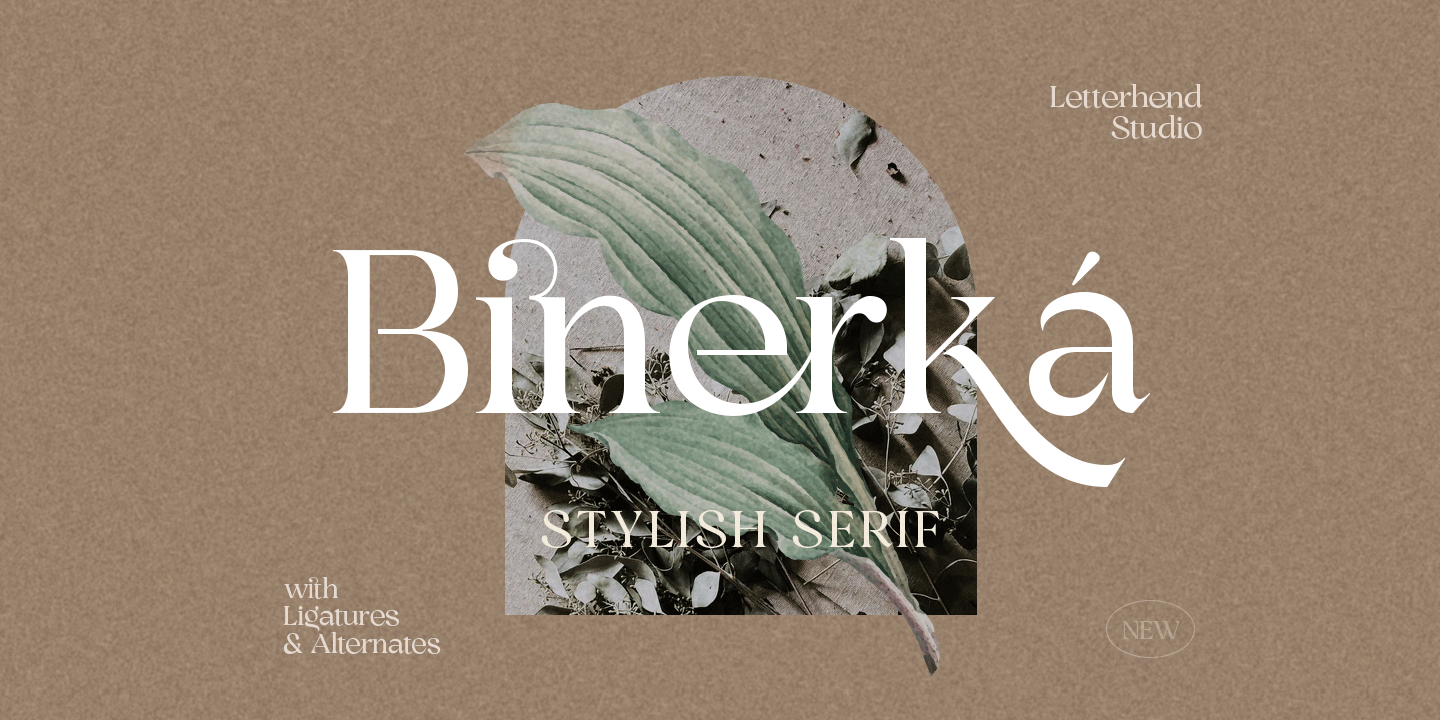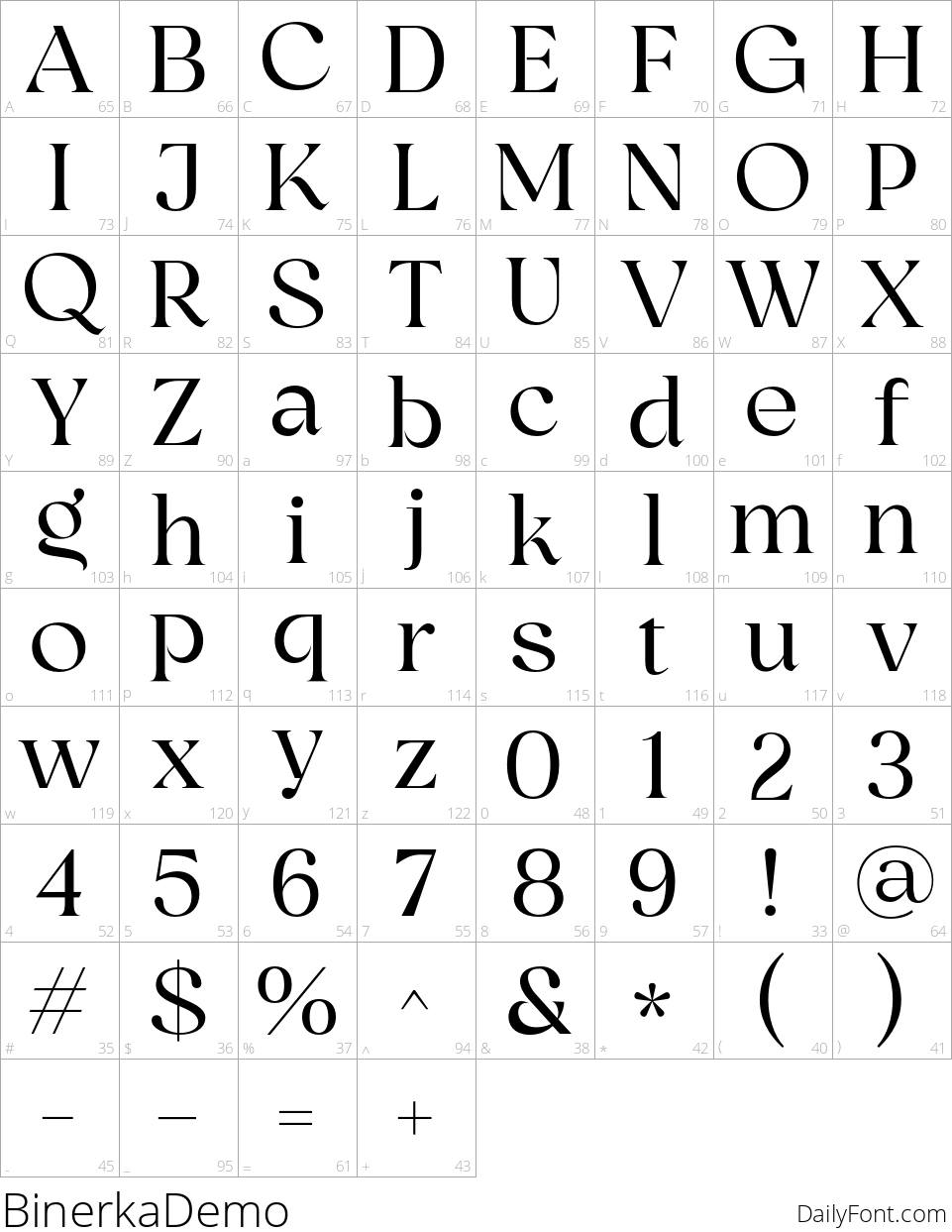
Binerka by Letterhend Studio
Binerka is a stunning serif font that features elegant curved flourishes, perfect for adding a touch of sophistication to any design project. Ideal for branding, invitations, and more.